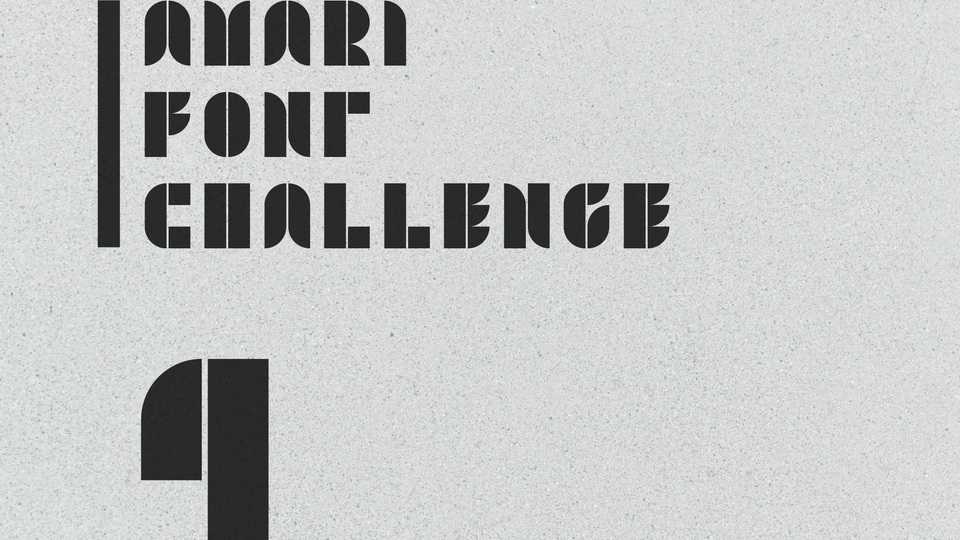
Amari Font 4/100 › Fontesk
Download Amari Font 4/100, a stencil display font based on geometric shapes and modules. With its unique look the font is great for posters, headlines, logos, experimental typography.